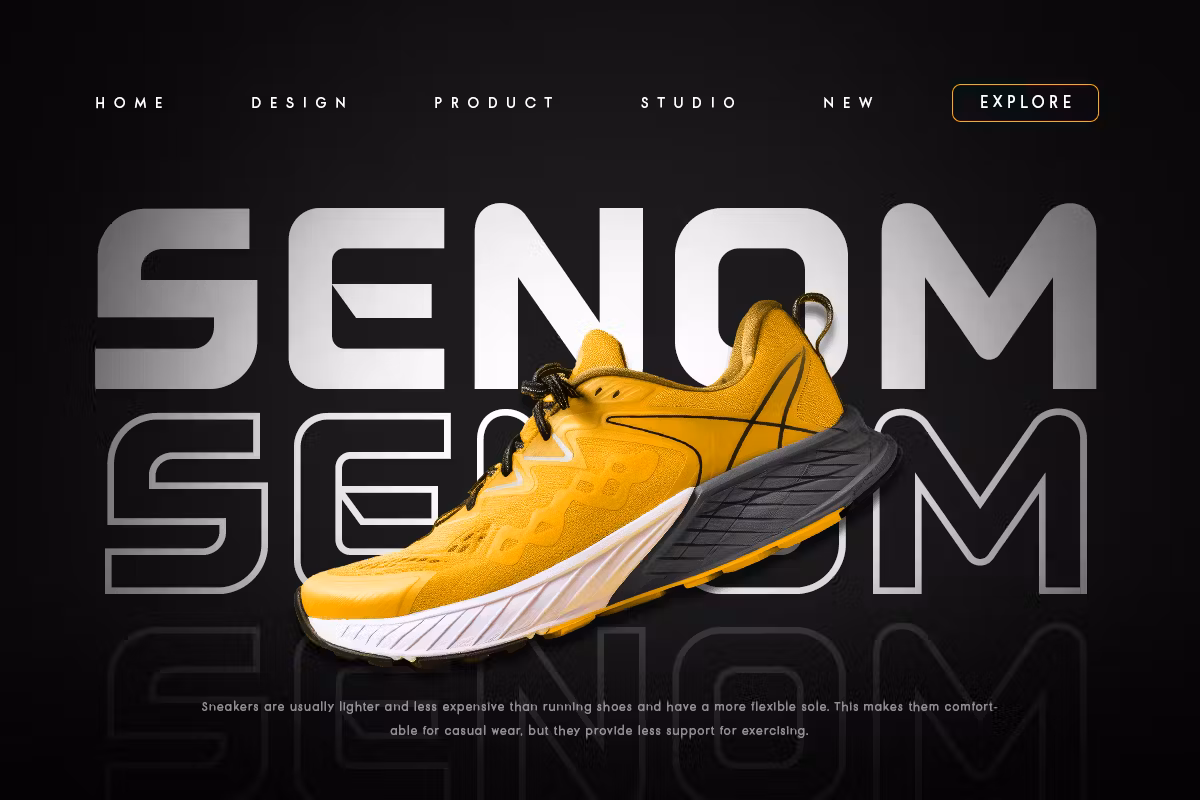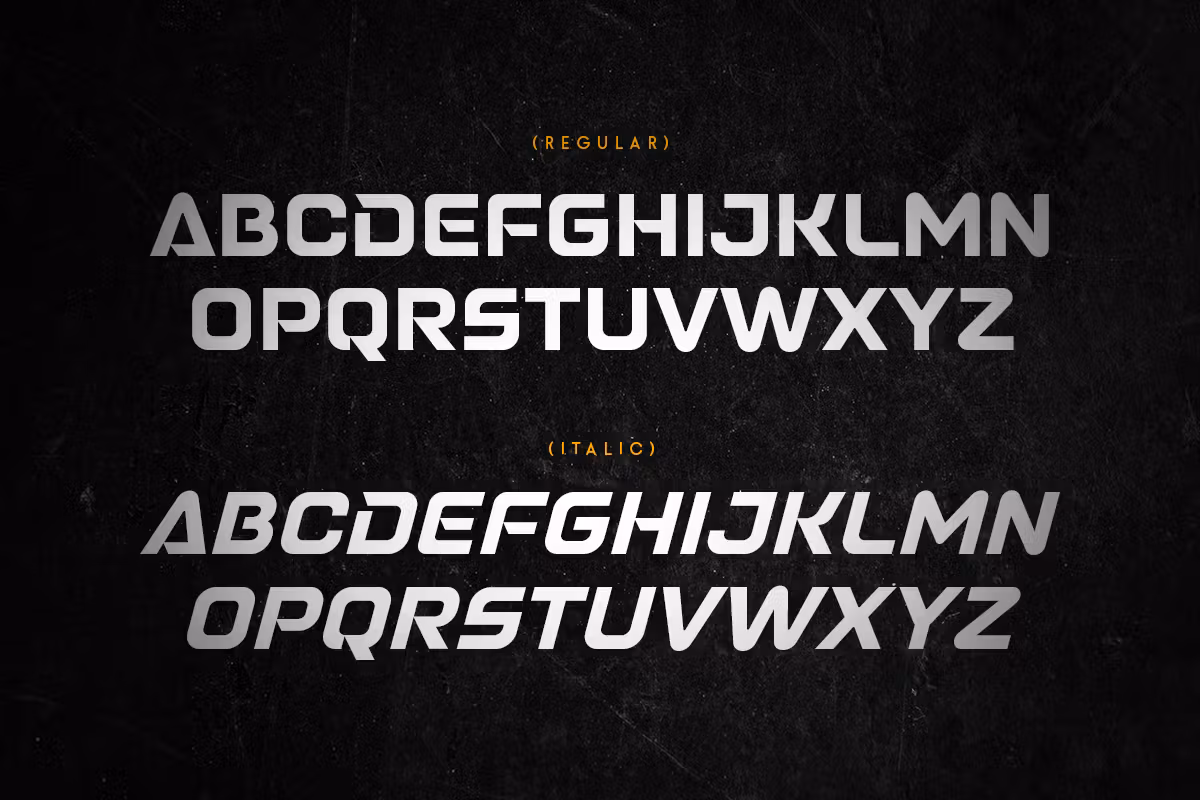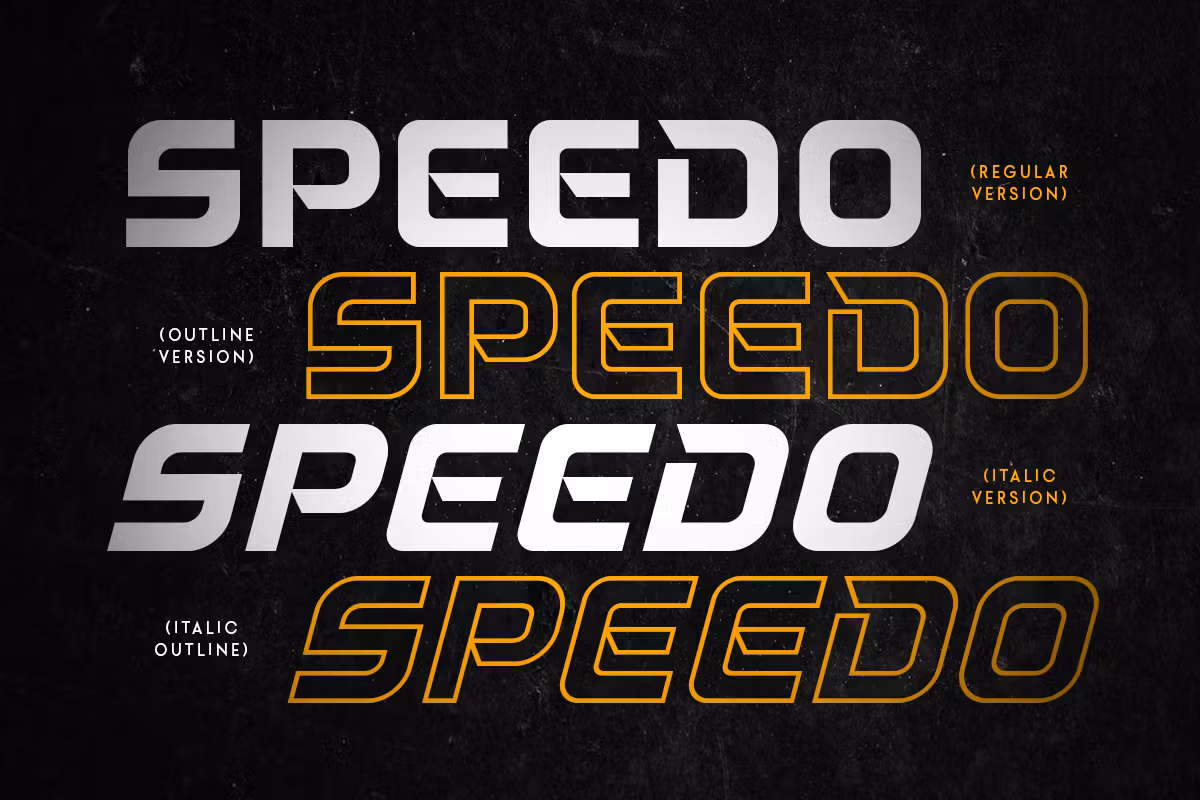
Speedo Font
Introducing another font dubbed Speedo Font; the perfect font for all your racing and or movie requirements. Naming and branding for a movie and an autoracing car: Speedo unites the velocity of car racing and the opening of a movie, along with the title of a movie โ€“ it is a strong and umbrella name for any project.
Speedo Sans Serif Font